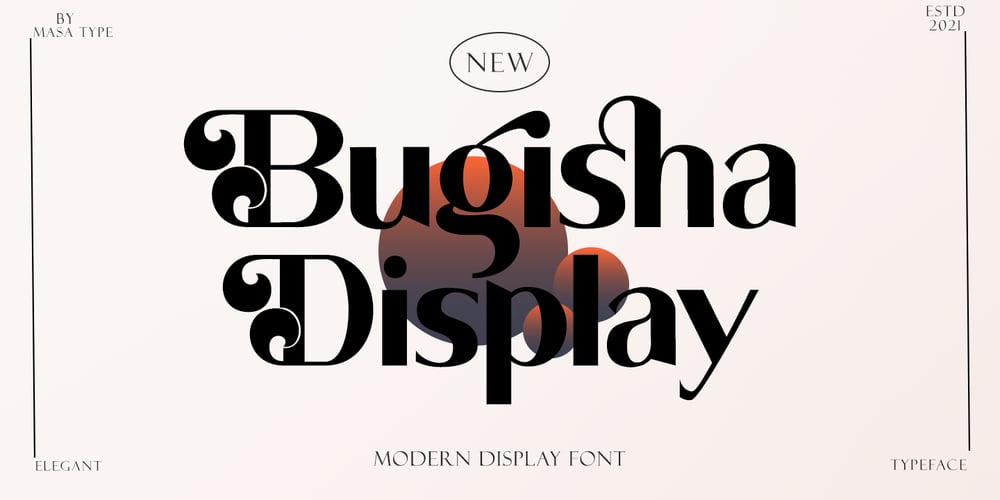
Bugisha Display Font Family was designed by Jumm ati and published by Masa Type. Bugisha Display contains 1 styles and family package options. Bugisha Display – a sans serif look with simple, clean and visual elegance with smooth curves and beautiful ligatures, A very versatile font that works in both large and small sizes. This font is suitable for a wide variety of projects such as: headlines, logos, labels, branding projects, magazines, homeware designs, product packaging, mugs, quotes, posters, and more. It can also be more expressive and fun, thanks to the many alternatives and binders that combine harmoniously in this font and make it more interesting and versatile. Try to change alternatives, binders and you will get many options for your project which will make it bold & beautiful.Features:• Full set of uppercase, lowercase• Ligatures• Alternative• A wide variety of numbers, symbols & punctuation• Characters with accents• Support Multiple Languages• PUA encoded WHAT IS INCLUDED:• Bugisha Display– Regular This type of family has become the work of true love, making it as easy and fun as possible.I really hope you enjoy it!I can’t wait to see what you do with Bugisha Display! Feel free to use the #Masa Type and #Bugisha Display font tags to show what you’ve doneThank You.